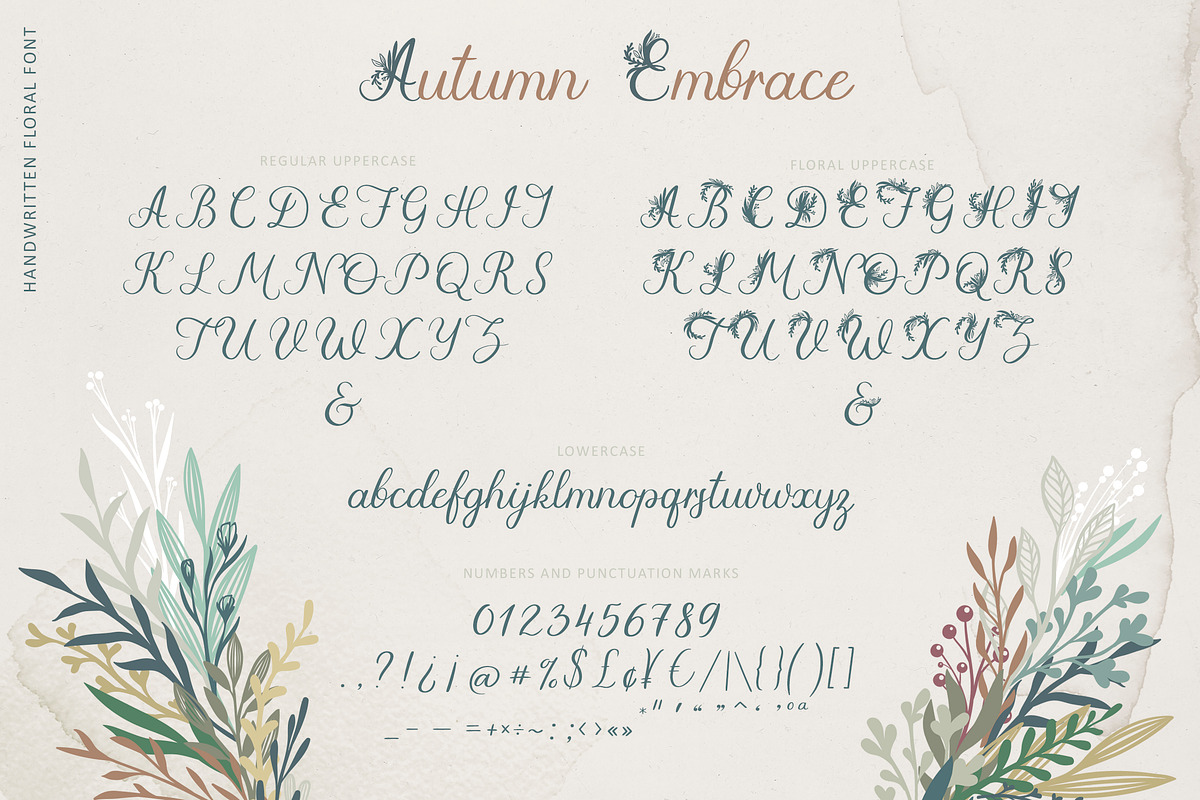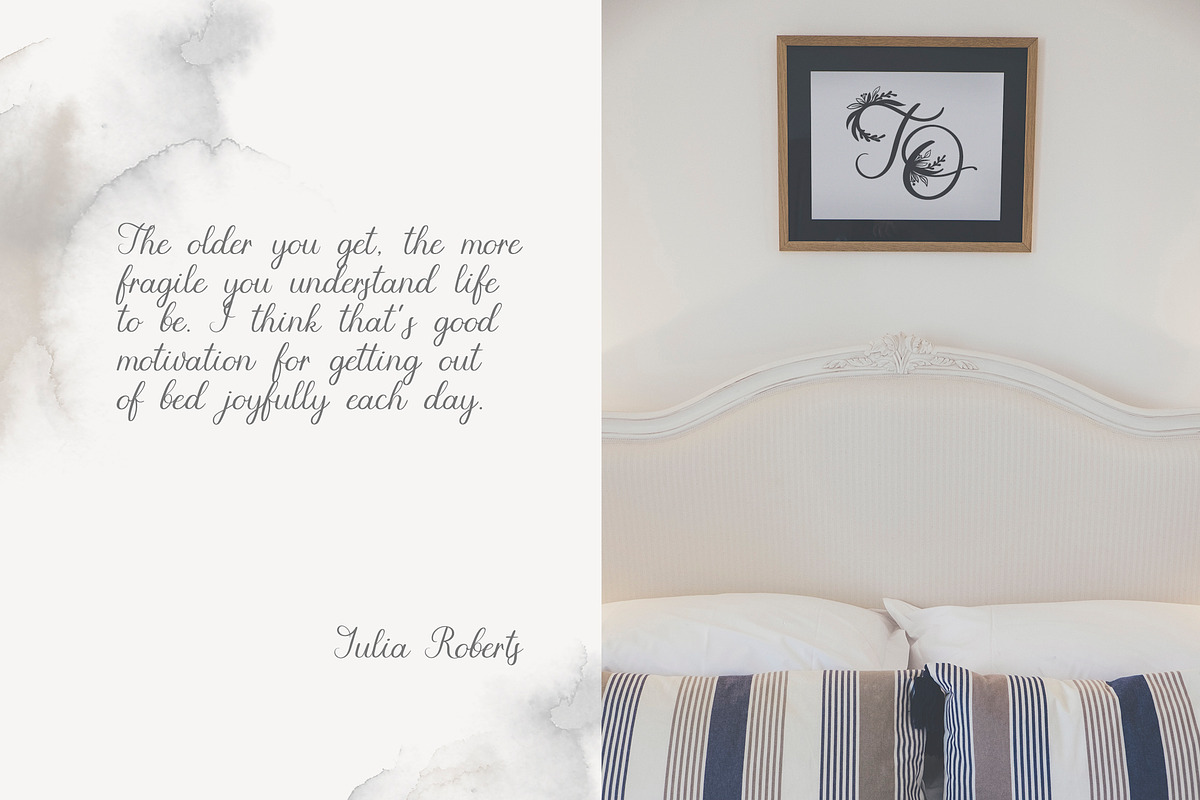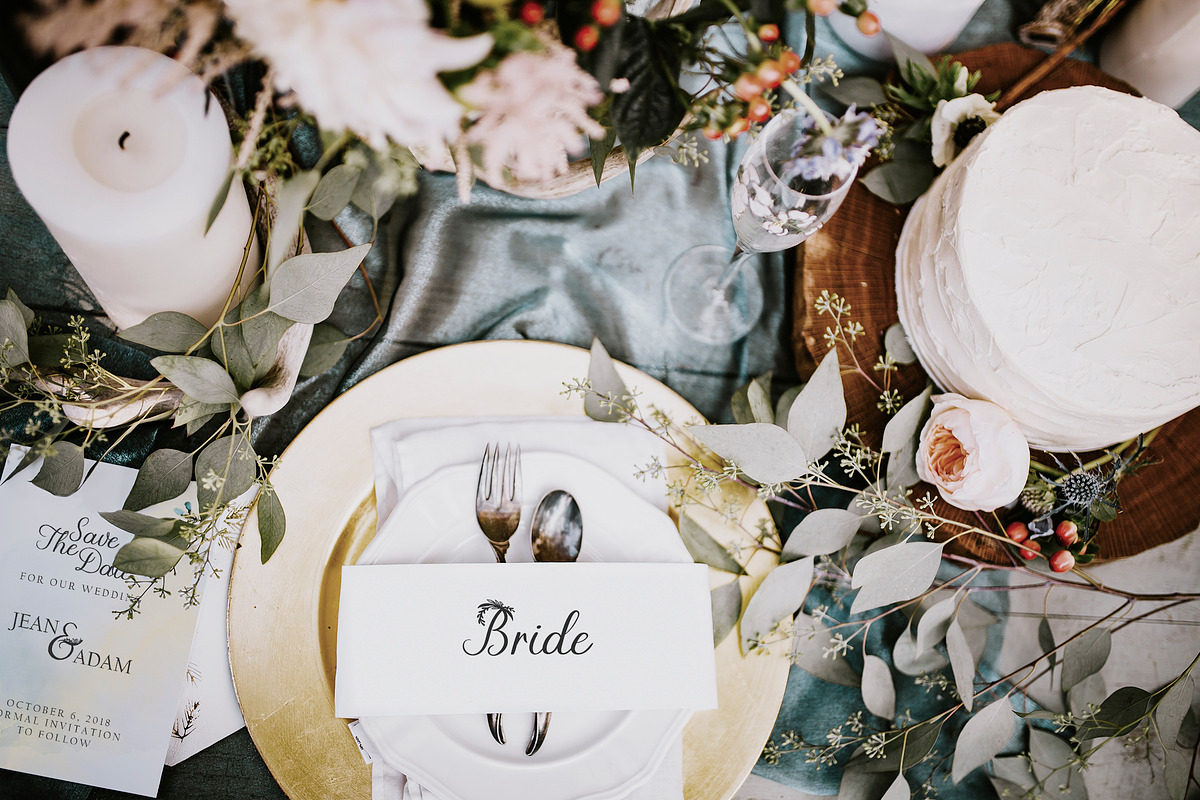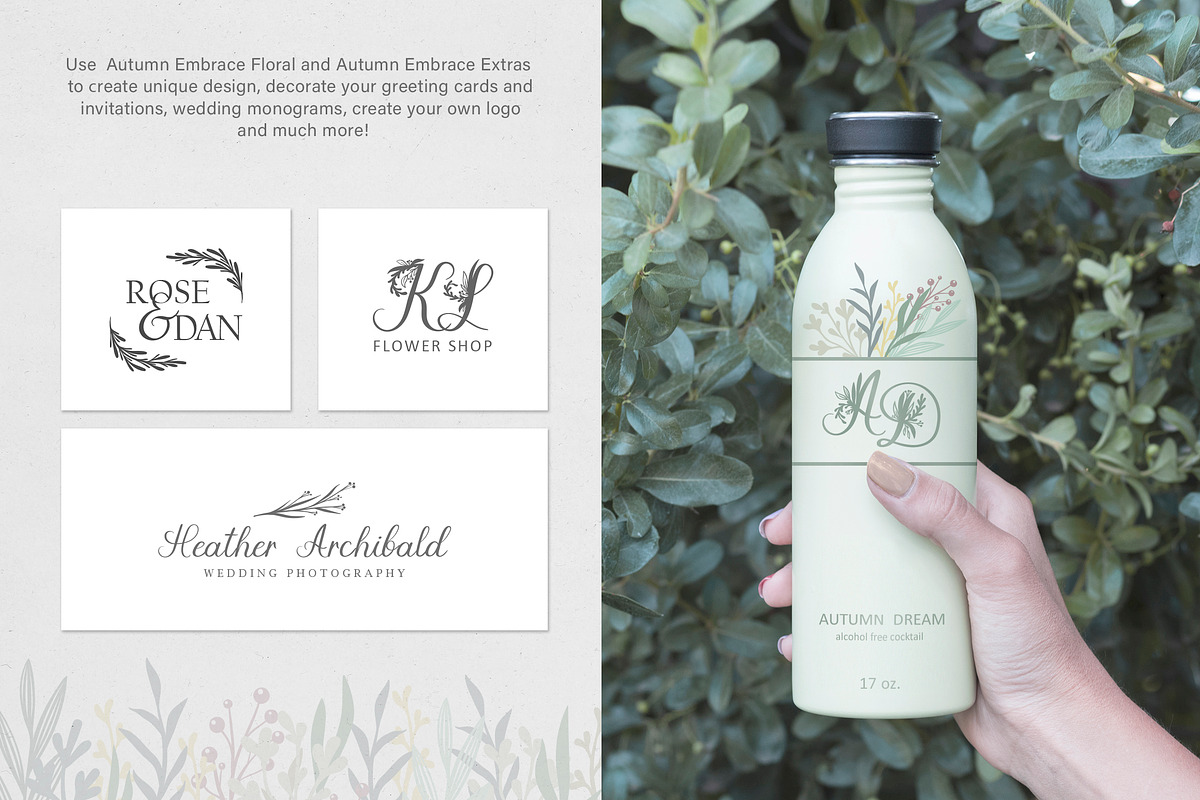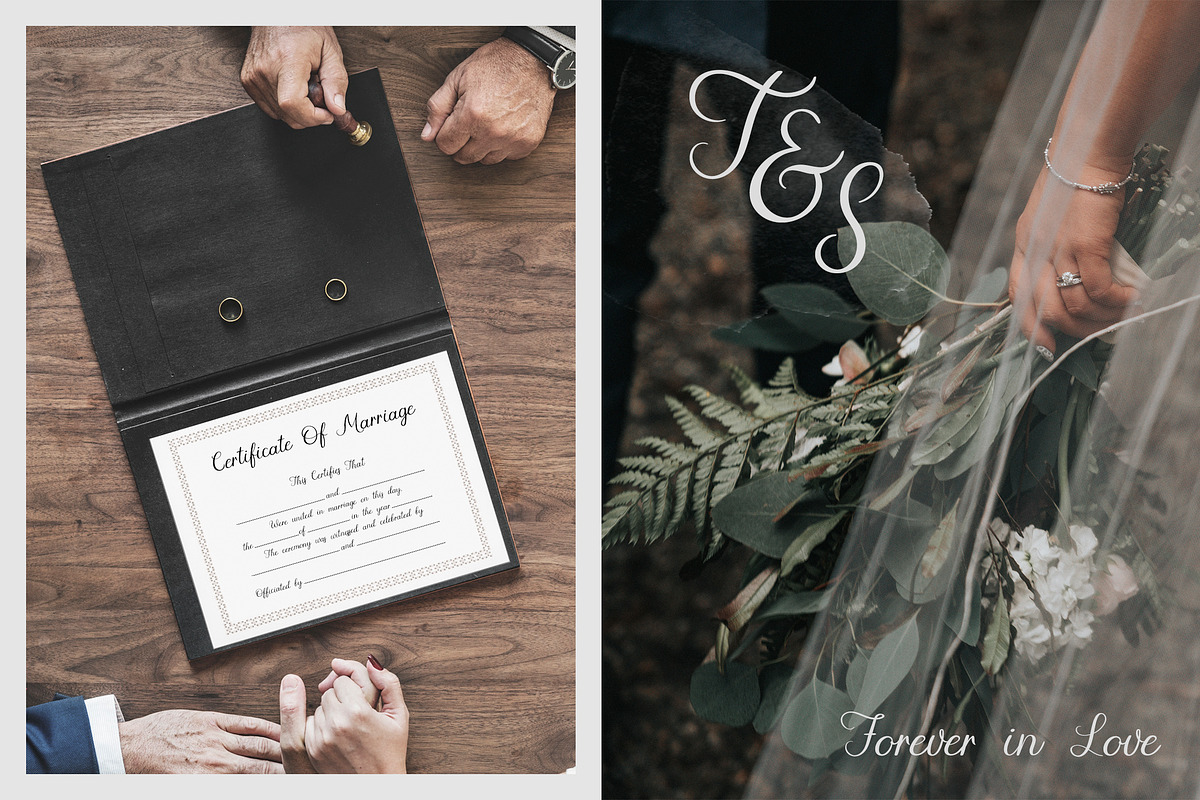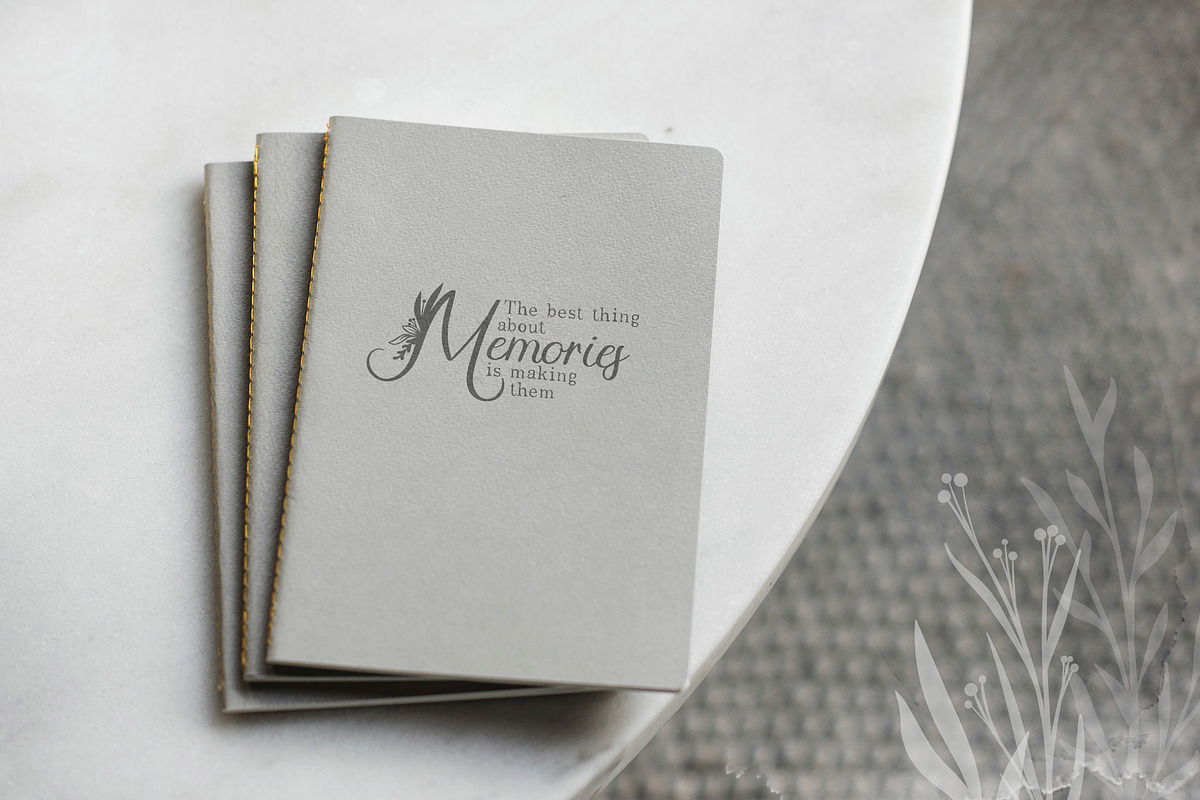
Autumn Embrace Floral Font
Are you waiting for Autumn?
I’m pleased to introduce my new handwritten floral font Autumn Embrace.
Autumn Embrace comes in three styles: Floral, Regular and Extras.
Autumn Embrace Floral is an elegant, decorative, feminine font. Floral uppercase letters are ideal for your wedding monograms and logos. Use this font for wedding invitations, branding, packaging, magazines, florist shops, social media, restaurant menus, greeting cards, headers and many more.
Autumn Embrace Regular is a modern calligraphy font. It's perfect for design projects, instagram, invitations, signatures, watermarks, logos, letterpress address, titles, birthday invitations, handwriting and more.
Autumn Embrace Extras is a symbol font (includes 52 hand drawn elements). You can use these characters either separately or in combination with Autumn Embrace Regular and Autumn Embrace Floral (or any other fonts). The symbols are perfect for creating your own logo, greeting cards, photo overlays, scrapbooking, writing letters and just for fun :)
UPDATE 1: Autumn Embrace has now been updated to support Spanish and German (Á Ä Ç É Í Ñ Ó Ö Ú Ü á ä ç é í ñ ó ö ú ü ). •
UPDATE 2: Autumn Embrace has now been updated to support French, Italian, Portuguese, Swedish, Norwegian, Danish, Finnish and other (À Â Ã Å Æ Ð È Ê Ë Ì Î Ï Ò Ô Õ Ø Œ Š Ù Û Ÿ Ý Ž á á â ã å æ è ê ë ì í î ï ı ò ô õ ø œ š ù û ý ÿ ž). •
UPDATE 3: Floral numbers are available now! •